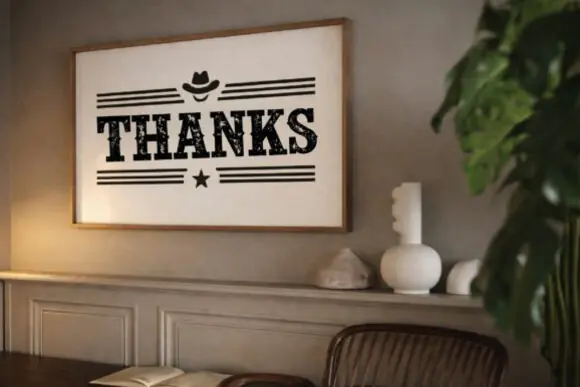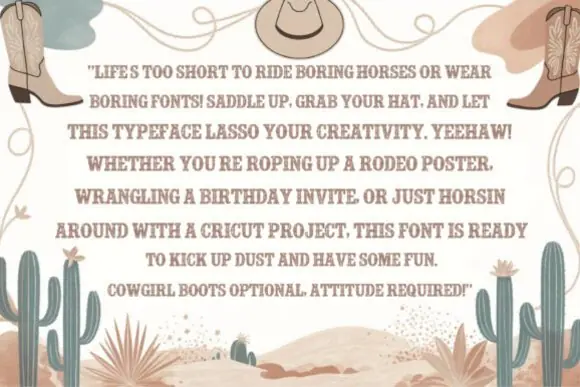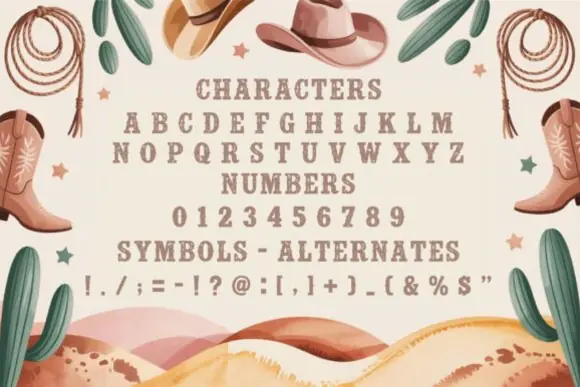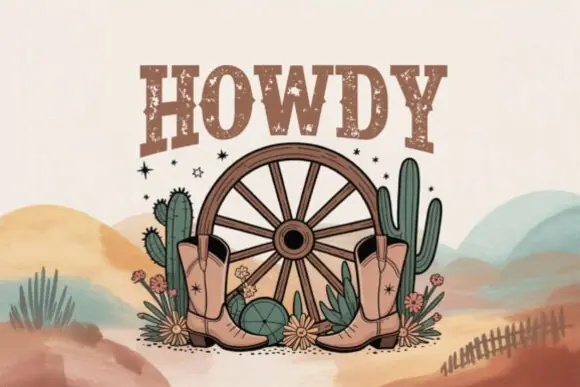
Bring rugged western charm and vintage cowboy attitude to your creative projects with Rough Cowboy Font, a bold distressed display typeface designed for rustic, country-inspired, and western-themed designs. With its strong slab serifs, worn texture, and classic cowboy personality, this font is perfect for projects that need a tough, nostalgic, and handcrafted look.
Rough Cowboy Font is ideal for designers, crafters, apparel sellers, sublimation artists, print-on-demand creators, small businesses, and branding professionals who want a strong western typeface for standout visual designs. It works beautifully for western logos, cowboy t-shirts, rodeo posters, rustic branding, country music graphics, farmhouse signs, stickers, labels, packaging, mugs, tote bags, and handmade craft projects.
The distressed texture gives each letter an authentic aged appearance, making your designs feel worn-in, vintage, and full of character. Whether you are creating a cowboy-themed apparel design, western bar logo, ranch brand identity, country event flyer, rodeo merchandise, sublimation graphic, or rustic wall art, Rough Cowboy Font gives your typography a bold and memorable western presence.
Its slab serif structure adds strength and readability, while the weathered finish brings a true old-west feel to both print and digital projects.
Key Style Features